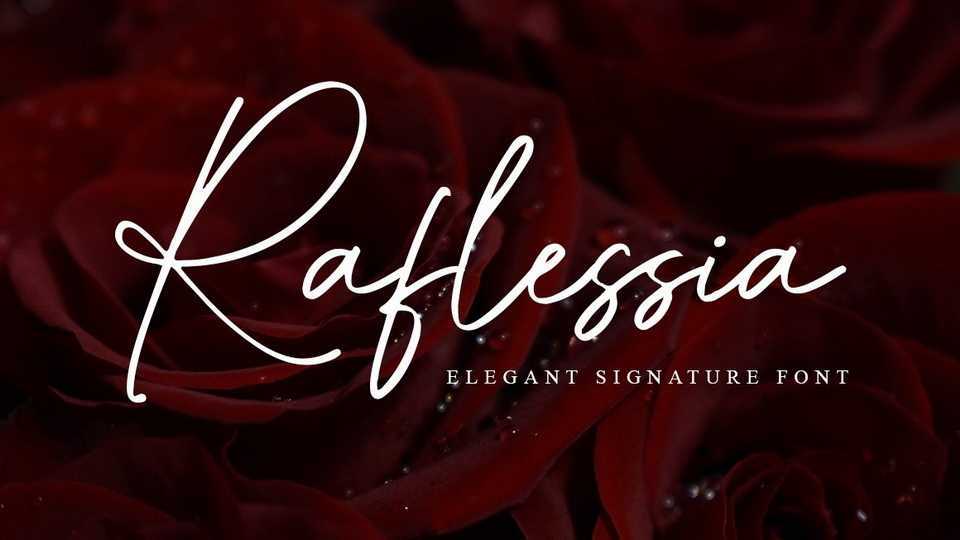
Download Raflessia font, a stunning signature typeface with a cool and luxury twist and a modern simplicity. Raflessia font is suitable for use on business cards, weddings, t-shirt designs, logos, magazines, quotes, fashion, watermarks, invitations, signatures.